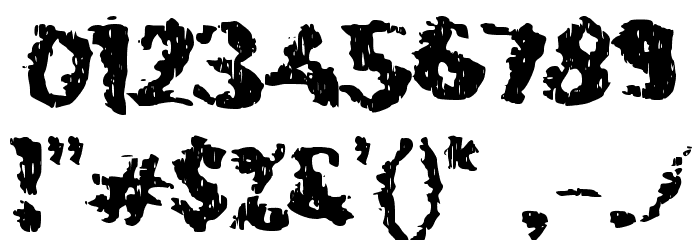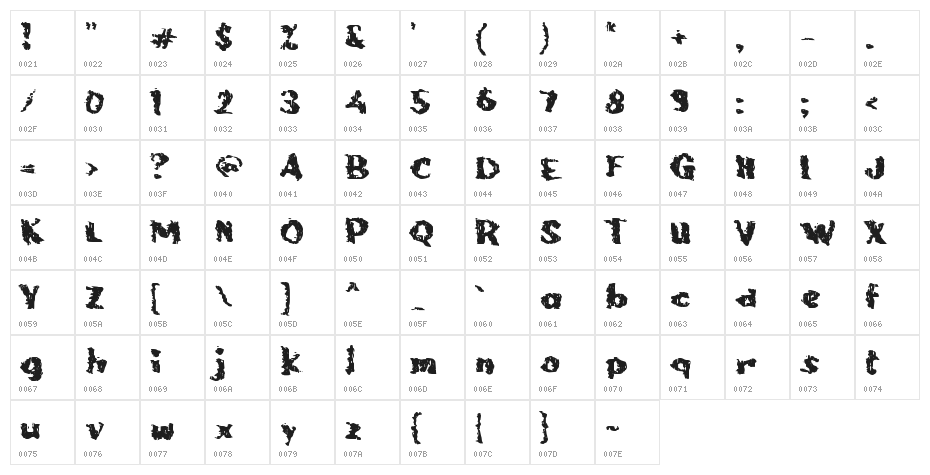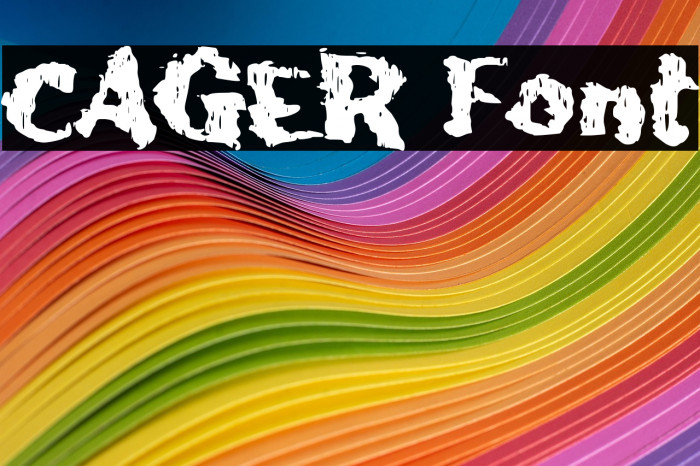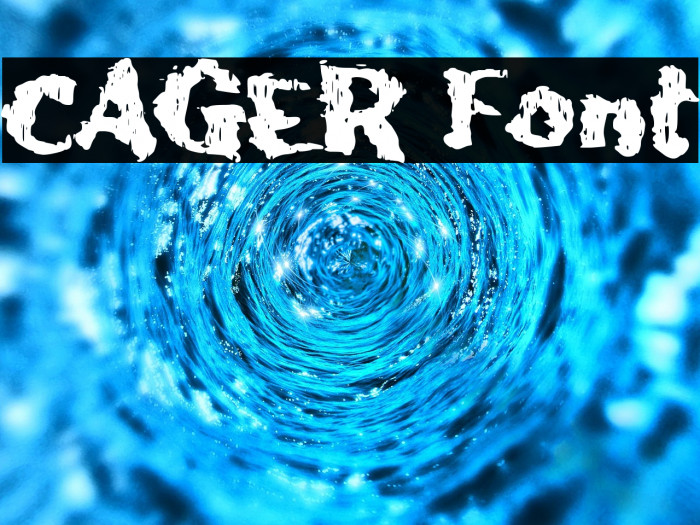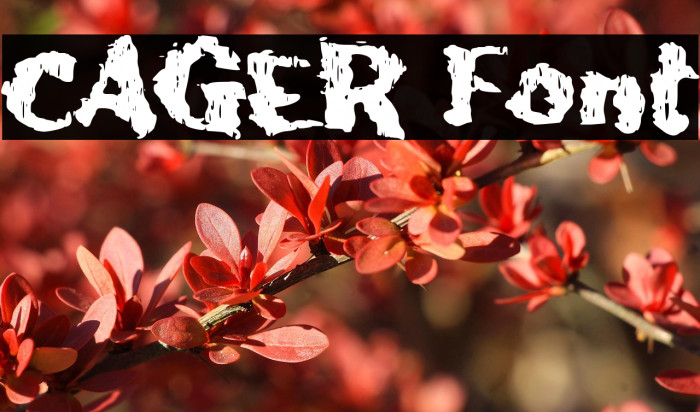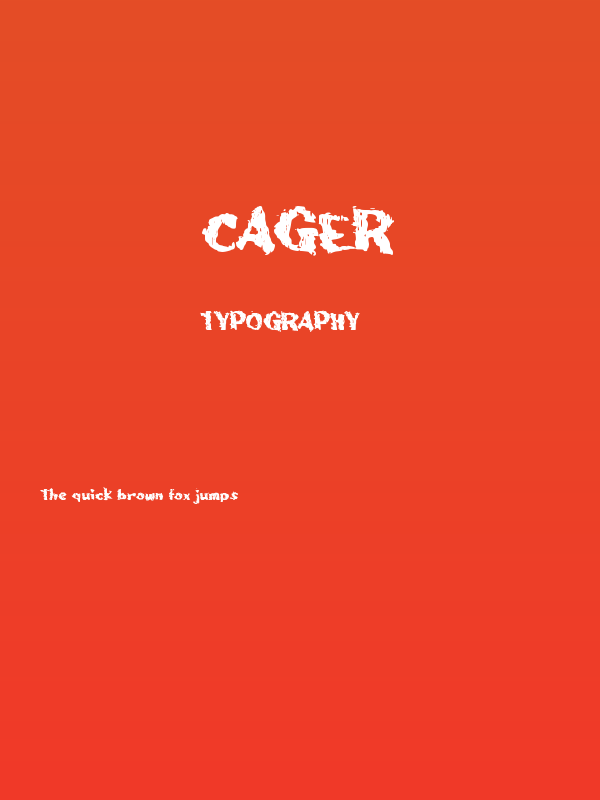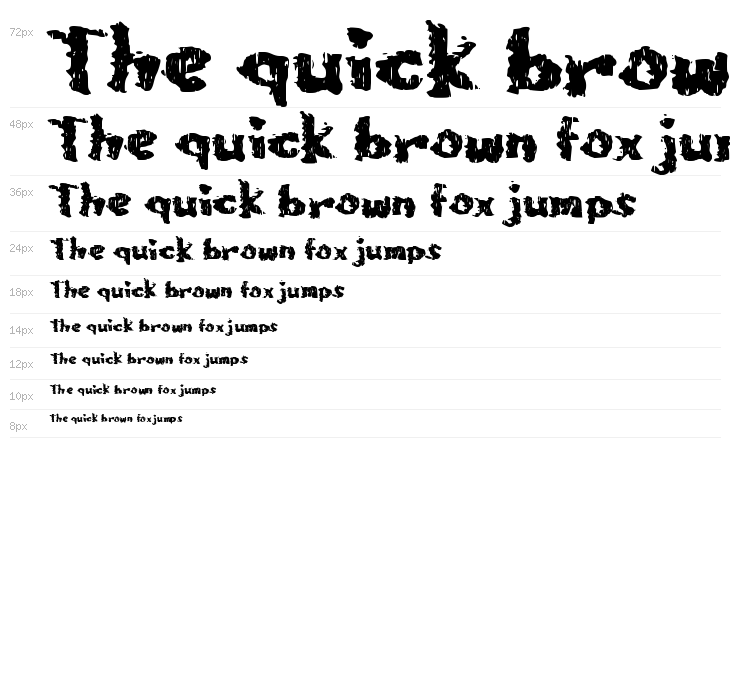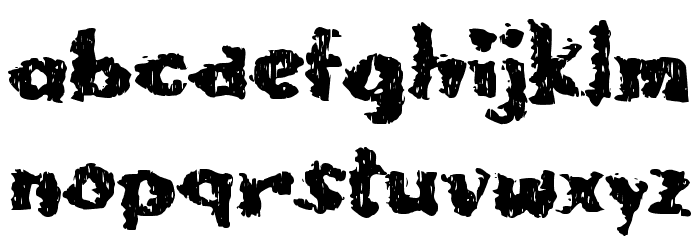
CAGER Font
CAGER Description
This font features a rugged, distressed style with a bold and textured appearance. The characters are irregular and jagged, giving them a rough, almost grunge-like aesthetic. The uppercase and lowercase letters maintain a consistent theme of uneven edges and a hand-drawn feel, while the numbers and special characters follow suit with the same distressed look. The overall design is eye-catching and conveys a sense of edginess and rebellion, making it suitable for projects that require a bold statement.
CAGER UPPERCASE
CAGER LOWERCASE
CAGER OTHER CHARS
| Overall Style | Grunge, Edgy, Urban |
| Use Case | Headlines, Posters, Album Covers |
| Proposed Projects | Ideal for album covers, posters, urban-themed designs, and any project needing a bold, edgy look. |